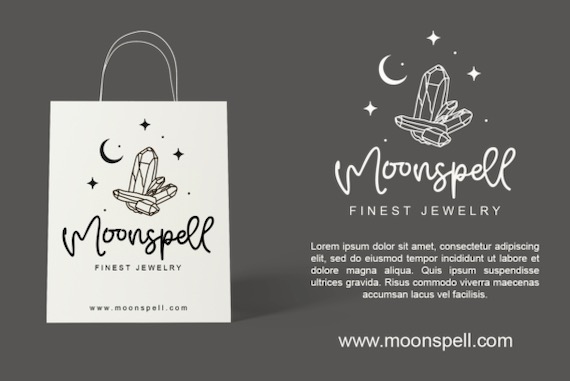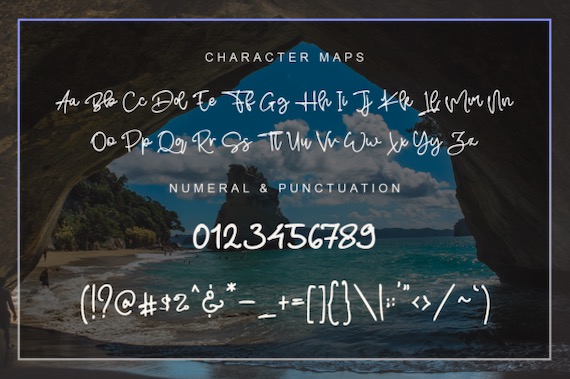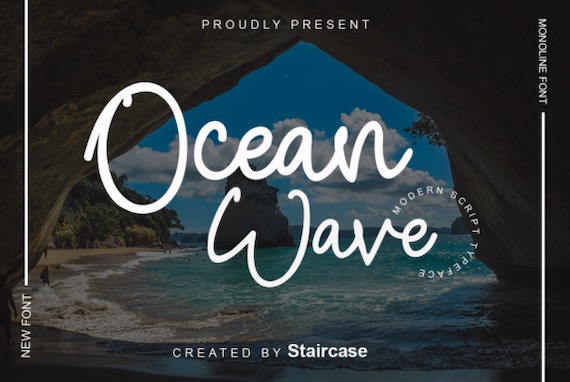
Ocean Wave is a quirky and chic handwritten script font that was created and shared by StaircaseStudio20. This script font will be the best design typeface choice for making quotes, branding, and eye catching logos. Every character has a beautiful & unique touch, which will make your design come alive!
Ocean Wave Handwritten Script Font
Font family: Ocean Wave Font
Full font name: Ocean Wave Font